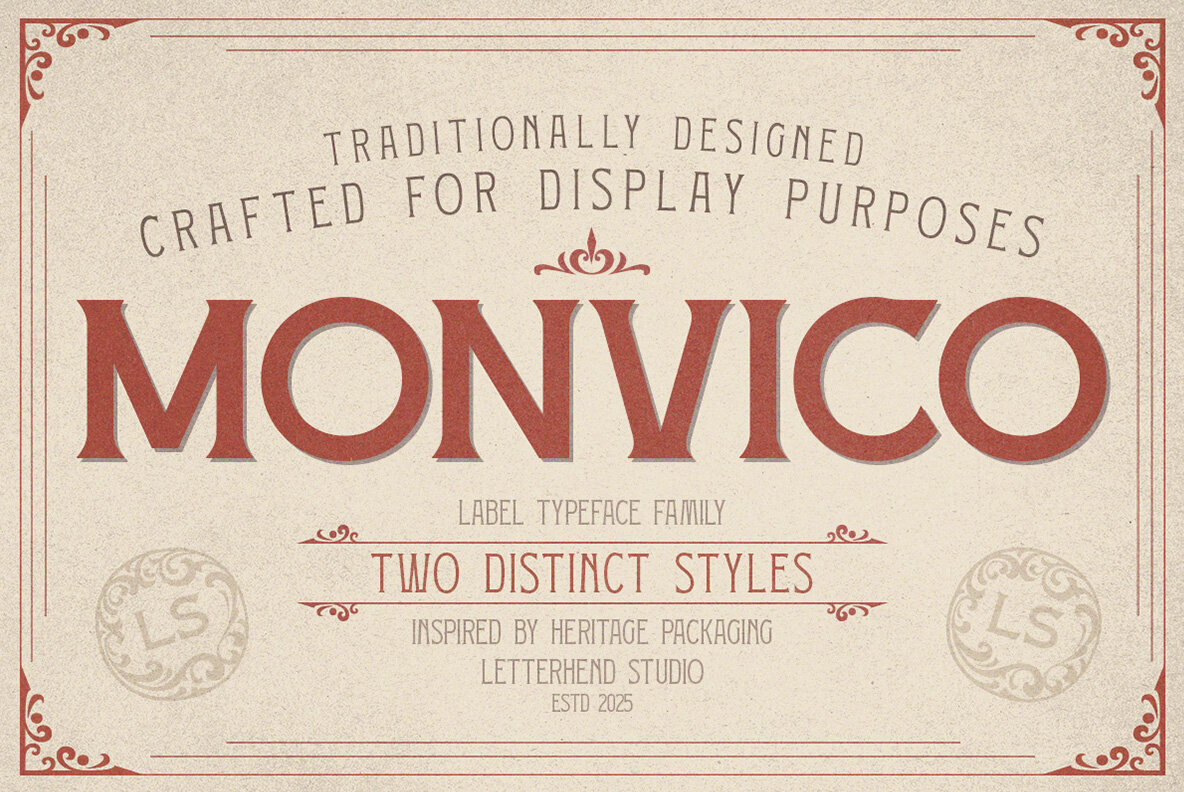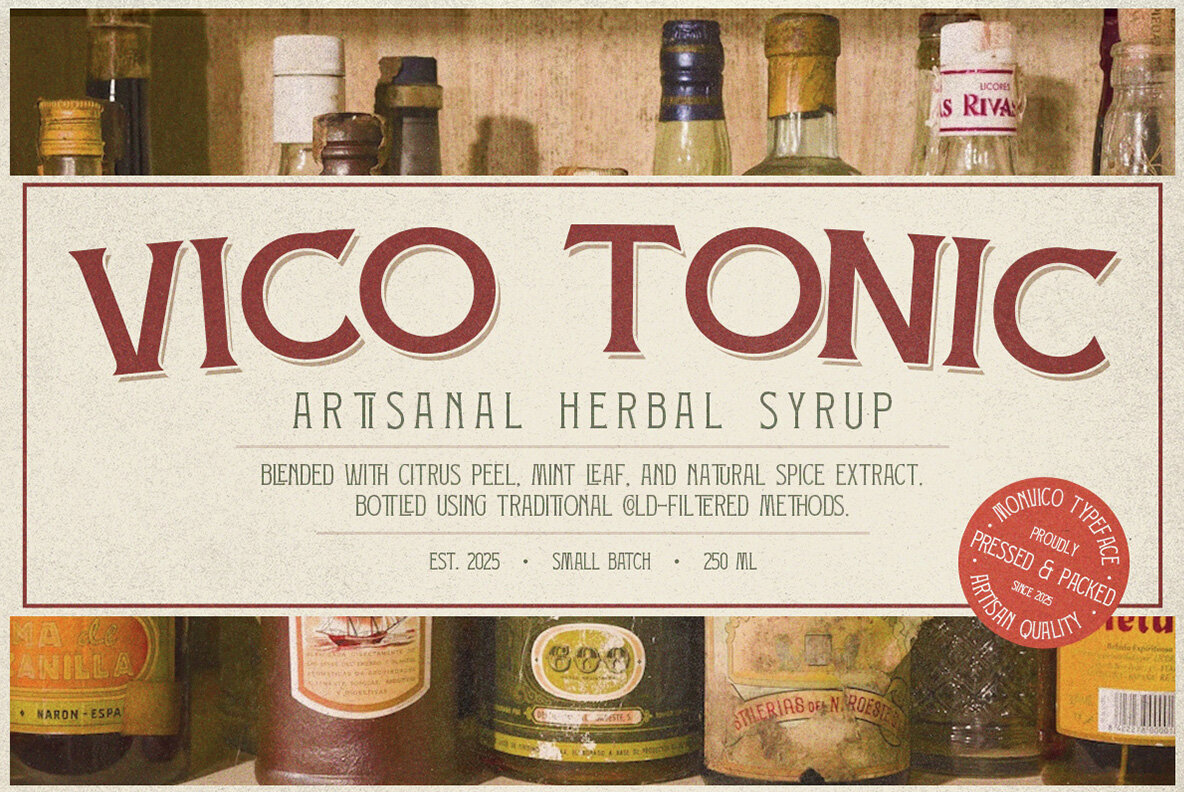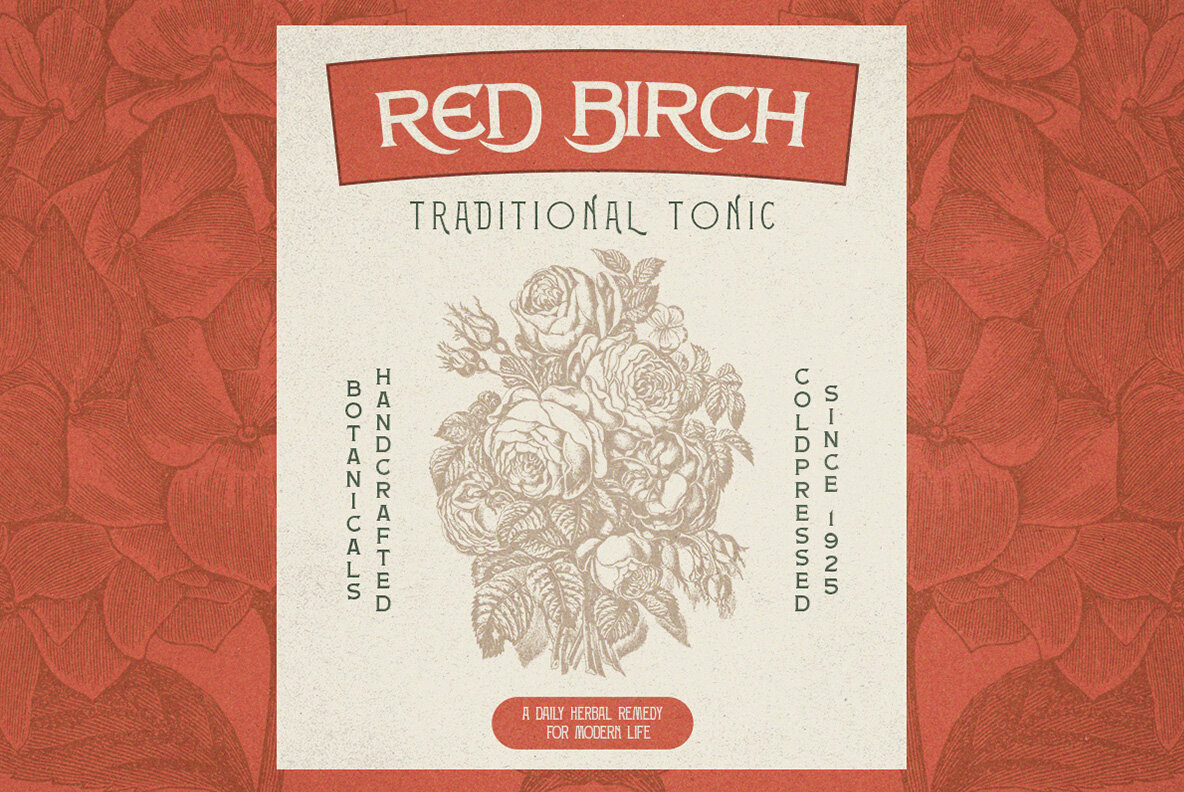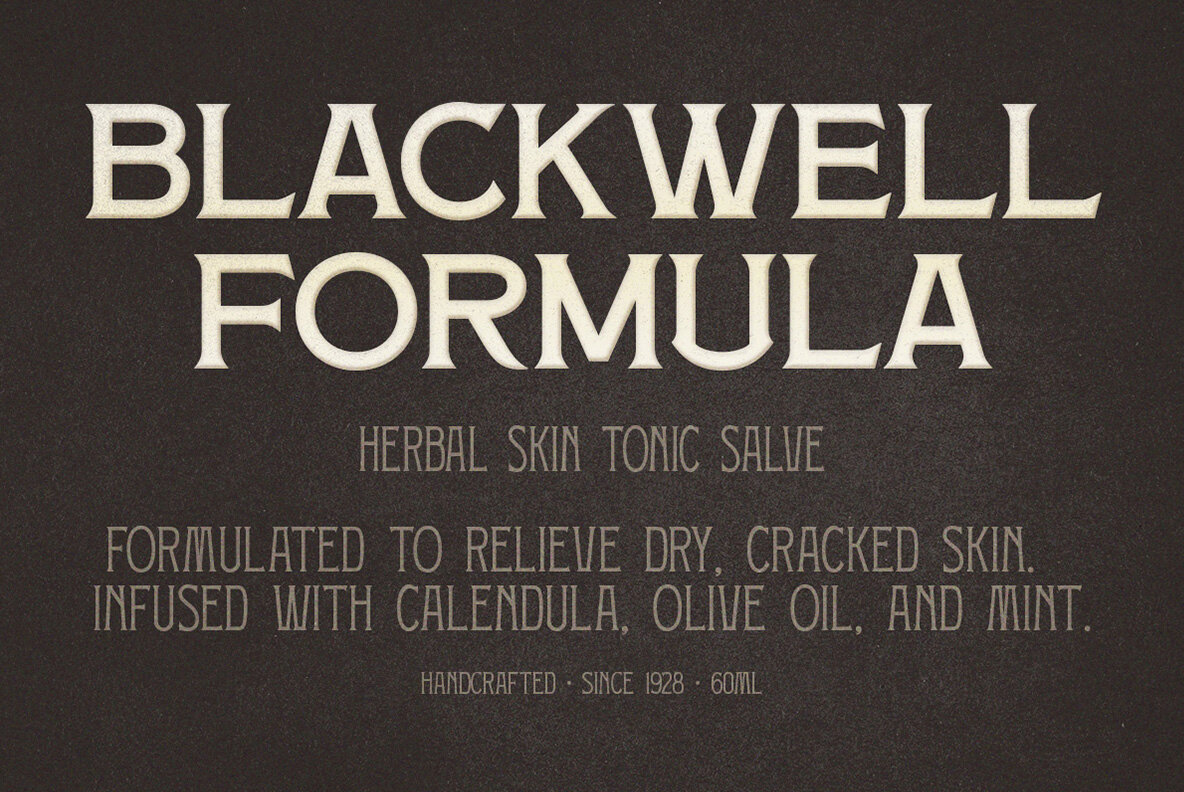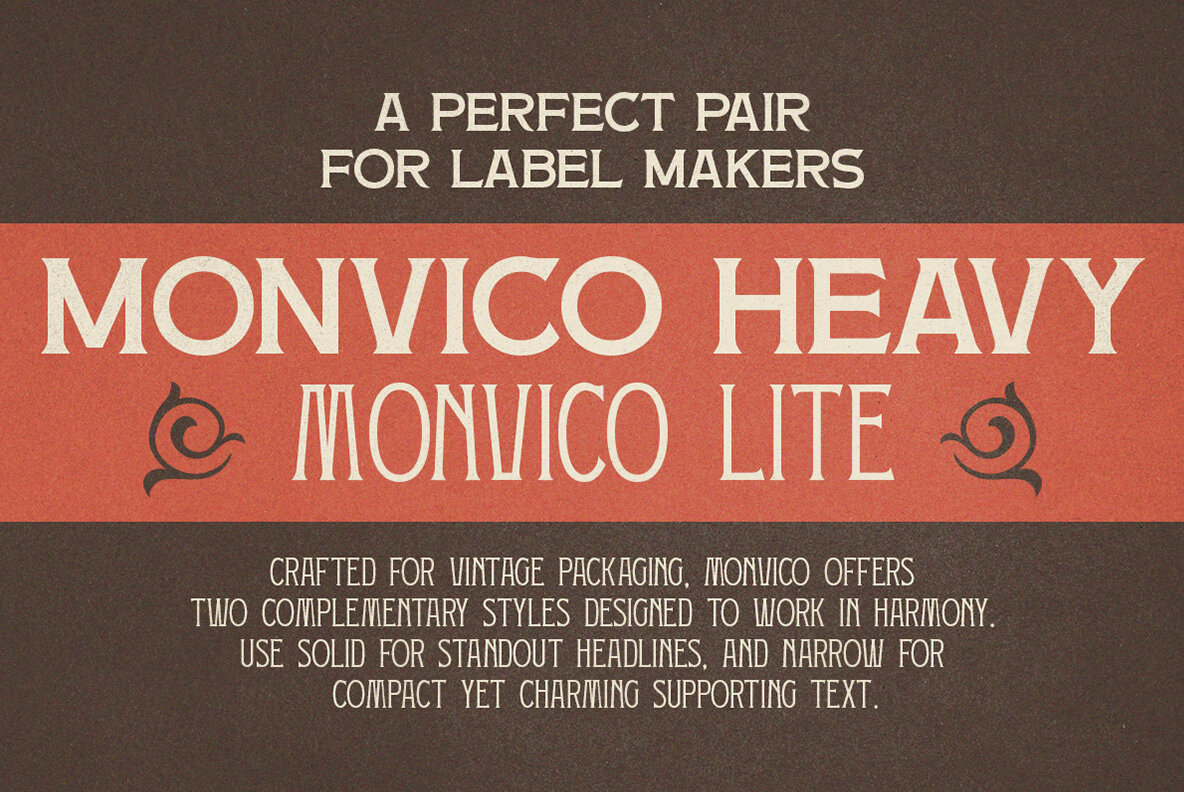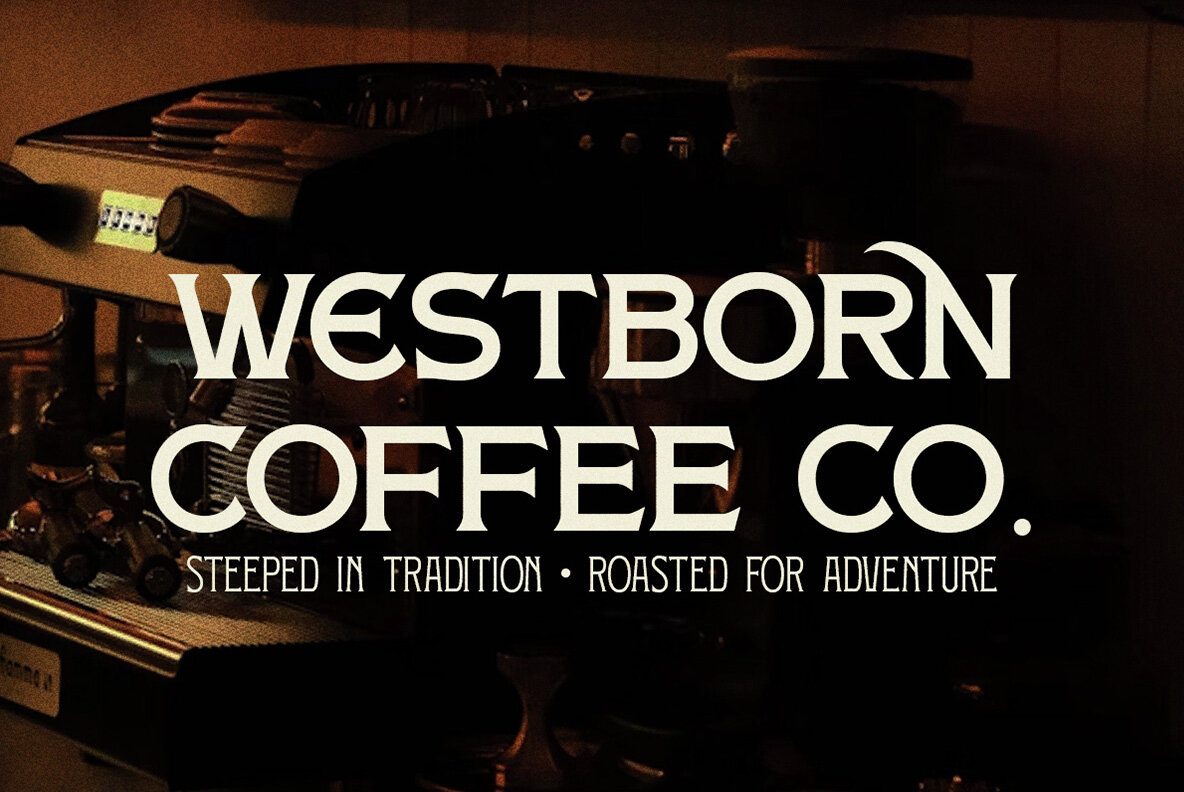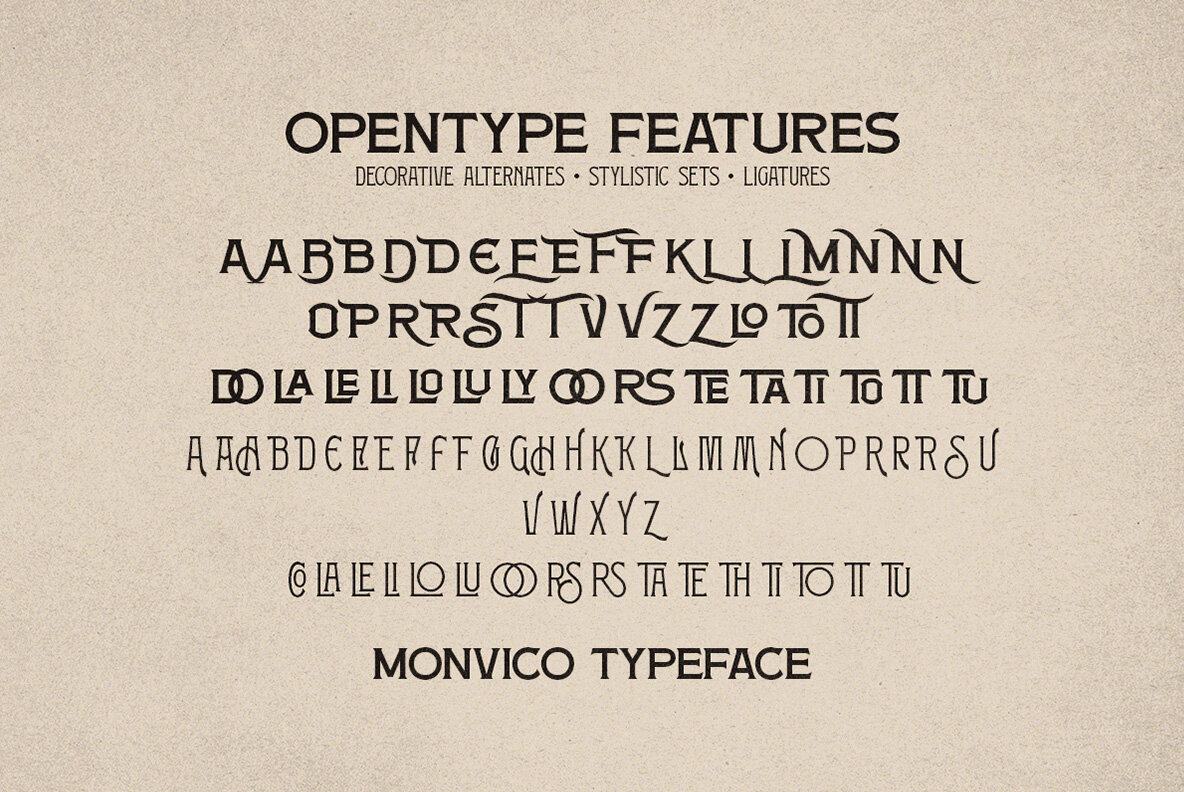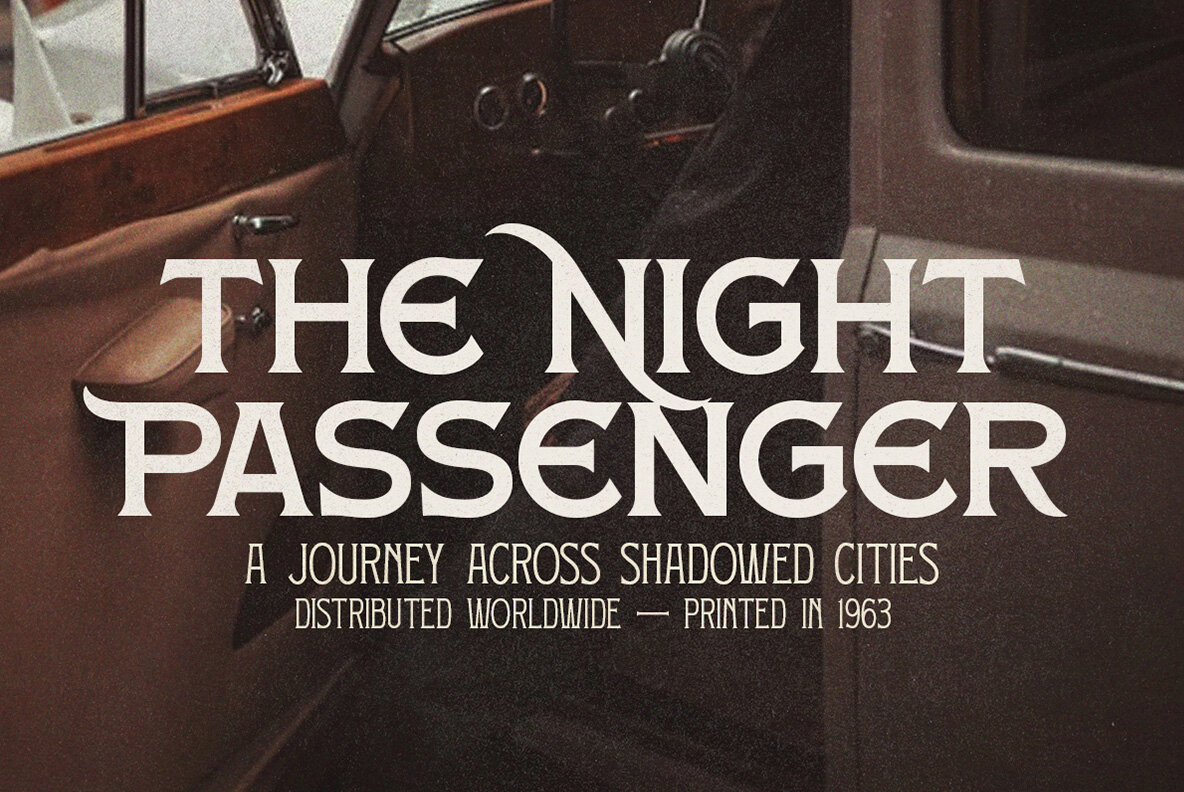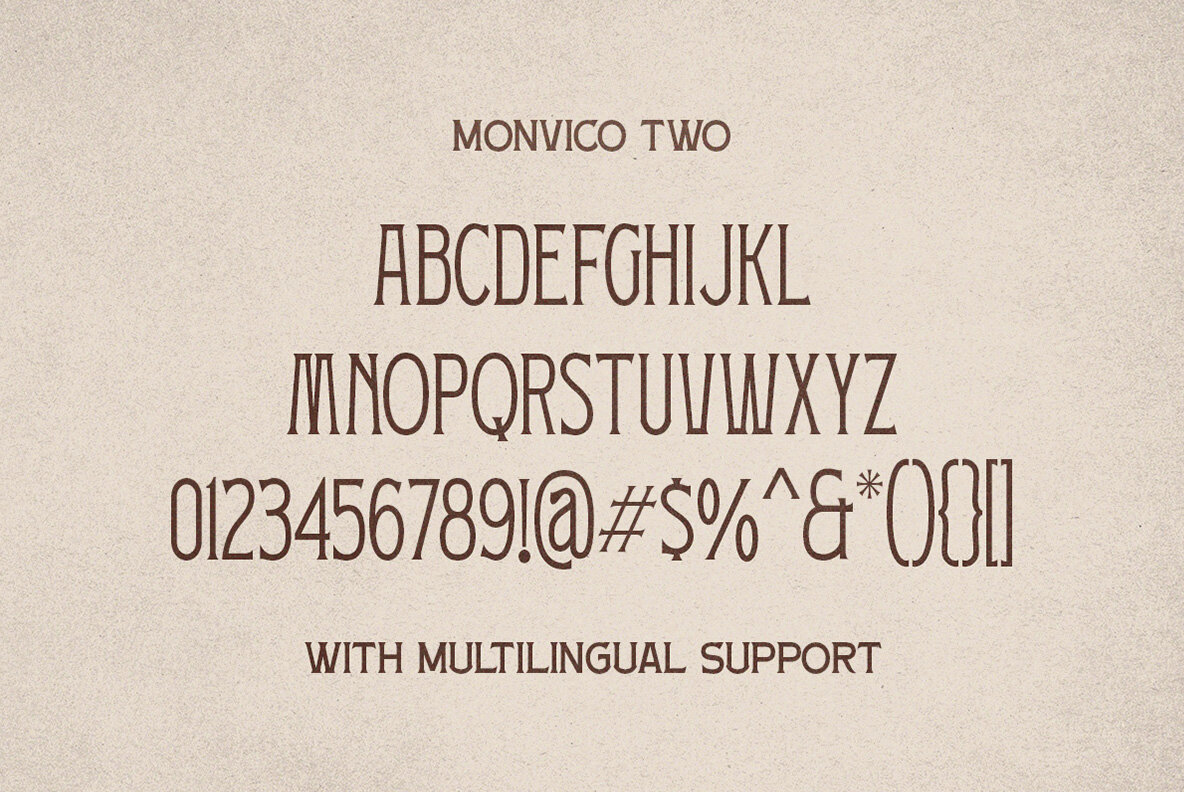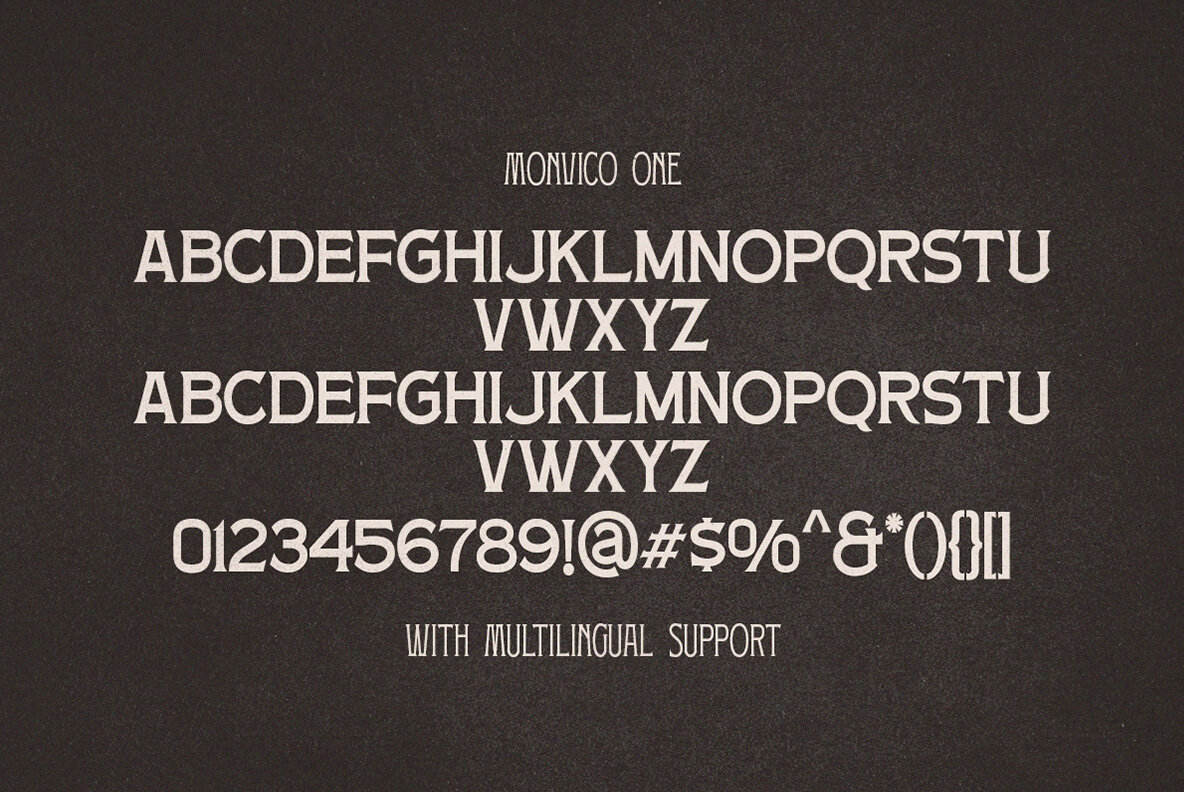
Monvico Font
Infuse your designs with a nostalgic charm using Monvico, a bold display font inspired by vintage aesthetics. Perfect for those seeking a traditional yet powerful visual identity, this typeface comes in two distinct styles. It is particularly suited to heritage packaging and branding reminiscent of a bygone era. Monvico shines in numerous applications, from labels and logos to signage and apparel design. Its bold characters, clean curves, and classic proportions lend projects an authentic vintage appeal.Monvico: Vintage-Inspired Bold Display Font